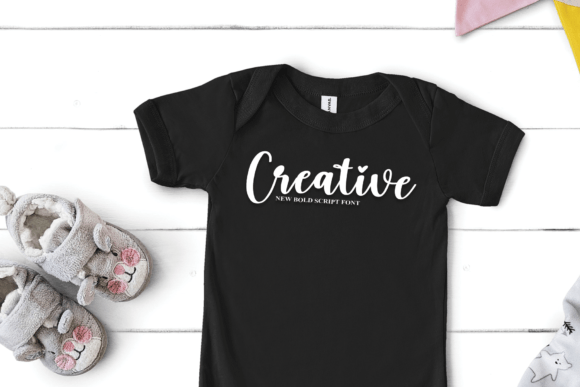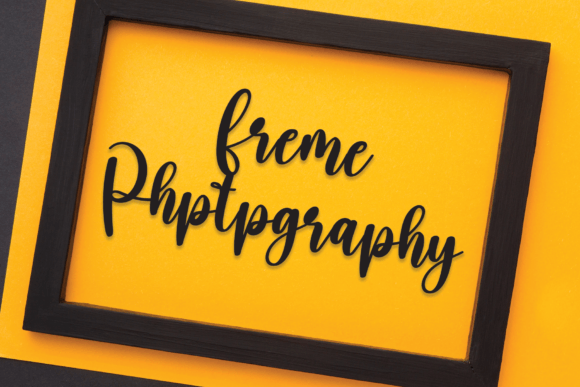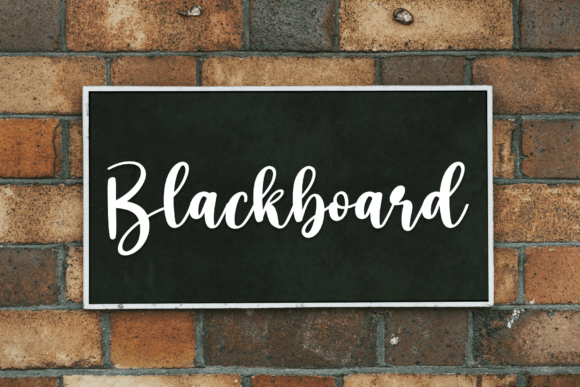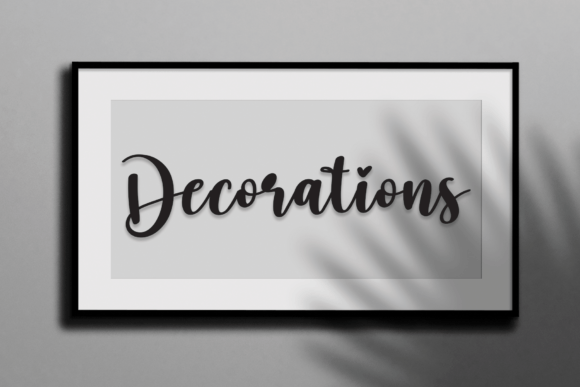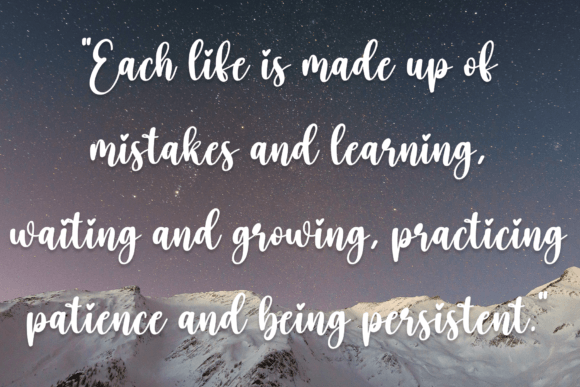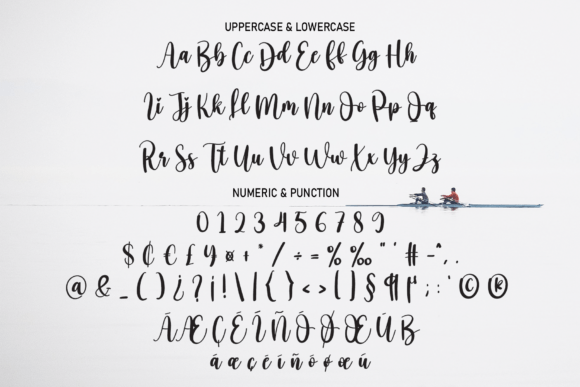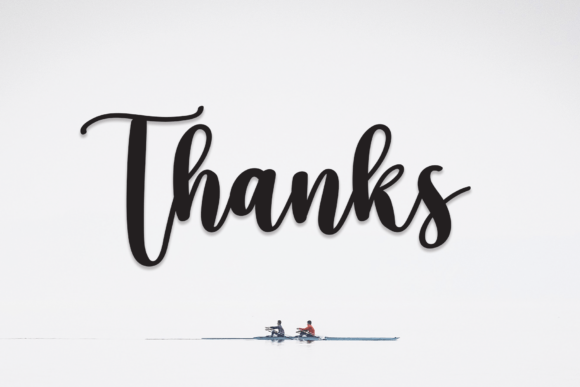
Chilly Font
About Chilly Font
The most recent iteration of this font introduces letters that are exquisitely tailored for an array of creative applications. Whether adorning expansive wall displays, setting the tone for elegant wedding invitations, or making a distinctive mark on social media post logos, the font’s latest style is a versatile companion across various design realms.
In the world of advertisements, these letters become powerful visual assets, capturing attention and infusing campaigns with a touch of modern elegance. The font seamlessly integrates into product packaging and design, lending a personalized and sophisticated aura to labels, product designs, and overall packaging aesthetics.
Photographers find in this font a valuable tool for watermarking, enhancing the visual identity of their images with a handwritten touch. The versatility extends to invitations and stationery, where each letter contributes to an atmosphere of warmth and individuality.
What makes this font truly exceptional is its ability to transcend specific project types. It effortlessly adapts to diverse creative endeavors, adding a nuanced, handwritten taste that elevates the overall aesthetic. Whether applied to labels, logos, or stationery, the font imparts a sense of craftsmanship and authenticity.
Imagine these letters gracing a wedding invitation, setting the stage for a celebration of love with their elegant and personal touch. Visualize them in a social media post logo, where they not only capture attention but also convey a sense of uniqueness and creativity. Envision the font seamlessly integrated into product packaging, enhancing the consumer’s experience with a touch of sophistication.
In the realm of design, this font is a versatile ally, allowing creators to experiment with handwritten elements across a spectrum of projects. Its contemporary style ensures relevance in modern contexts, while its timeless charm makes it adaptable to various design sensibilities.
Whether you are a graphic designer working on advertisements, a bride-to-be crafting the perfect wedding invitation, or a business owner seeking a distinctive logo, this font’s latest style offers a palette of creative possibilities. Its handwritten taste is not just a stylistic choice; it’s a key to unlocking a realm of design where each stroke tells a story and adds a personal touch to every project it graces.